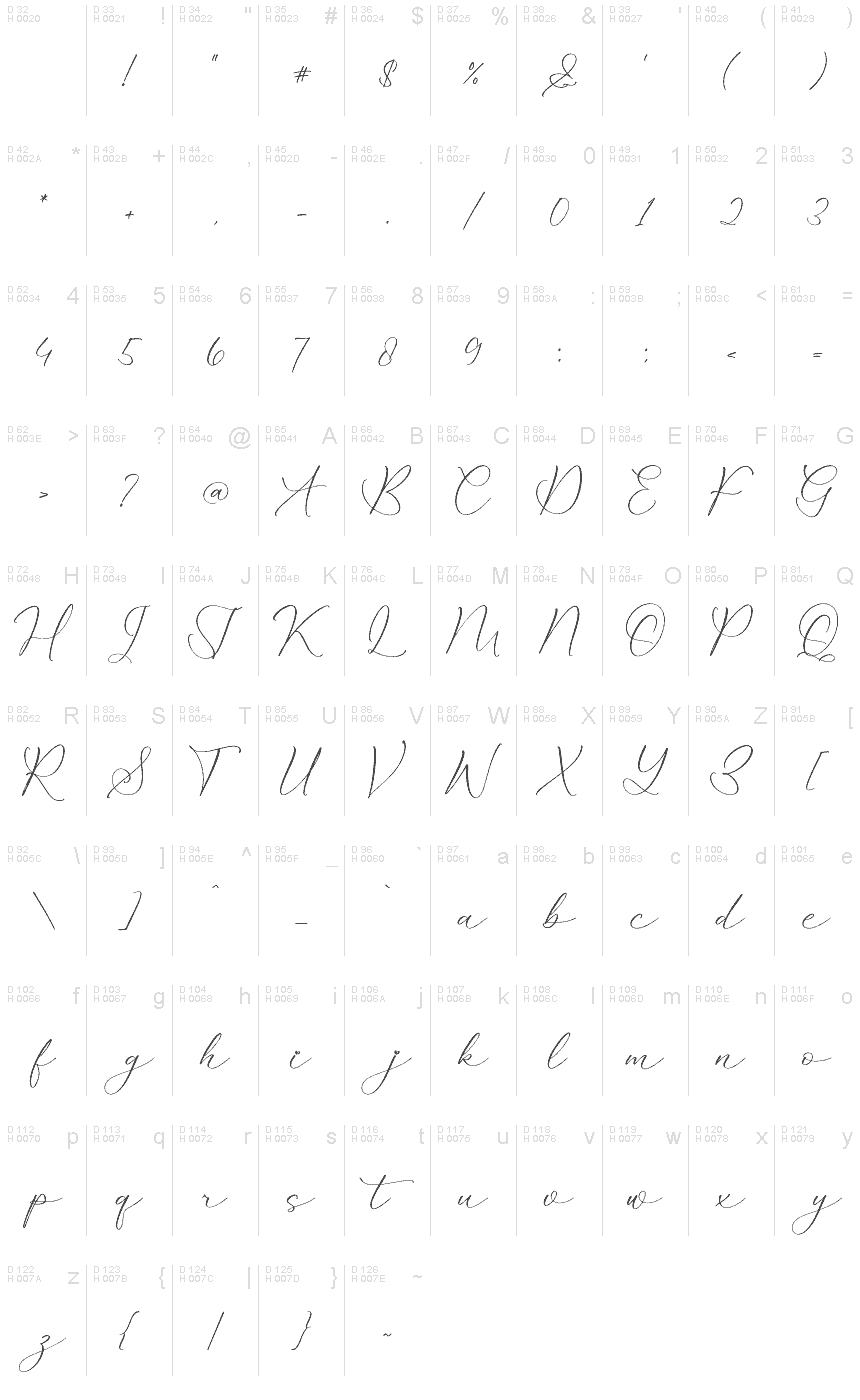
Klasynta Gelisha
Klasynta Gelisha font is a beautiful handwritten font by Storytype Studio that has a natural flow and elegant finish. The free signature-style font has light letters with thin edges which make it ideal for different purposes. Make your design extra interesting in seconds with its careful lowercase letters.
Designing modern logos, packaging, menus, and posters can be a lot of fun using this script font. Other use cases include invitations, greeting cards, apparel designs, social media posts, boards designs on Pinterest etc.